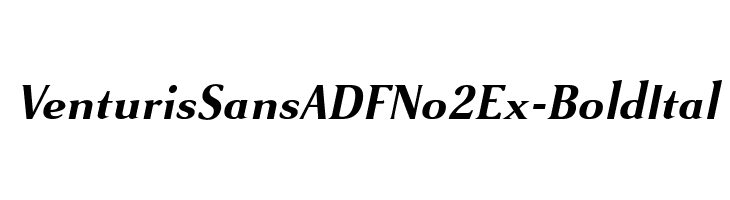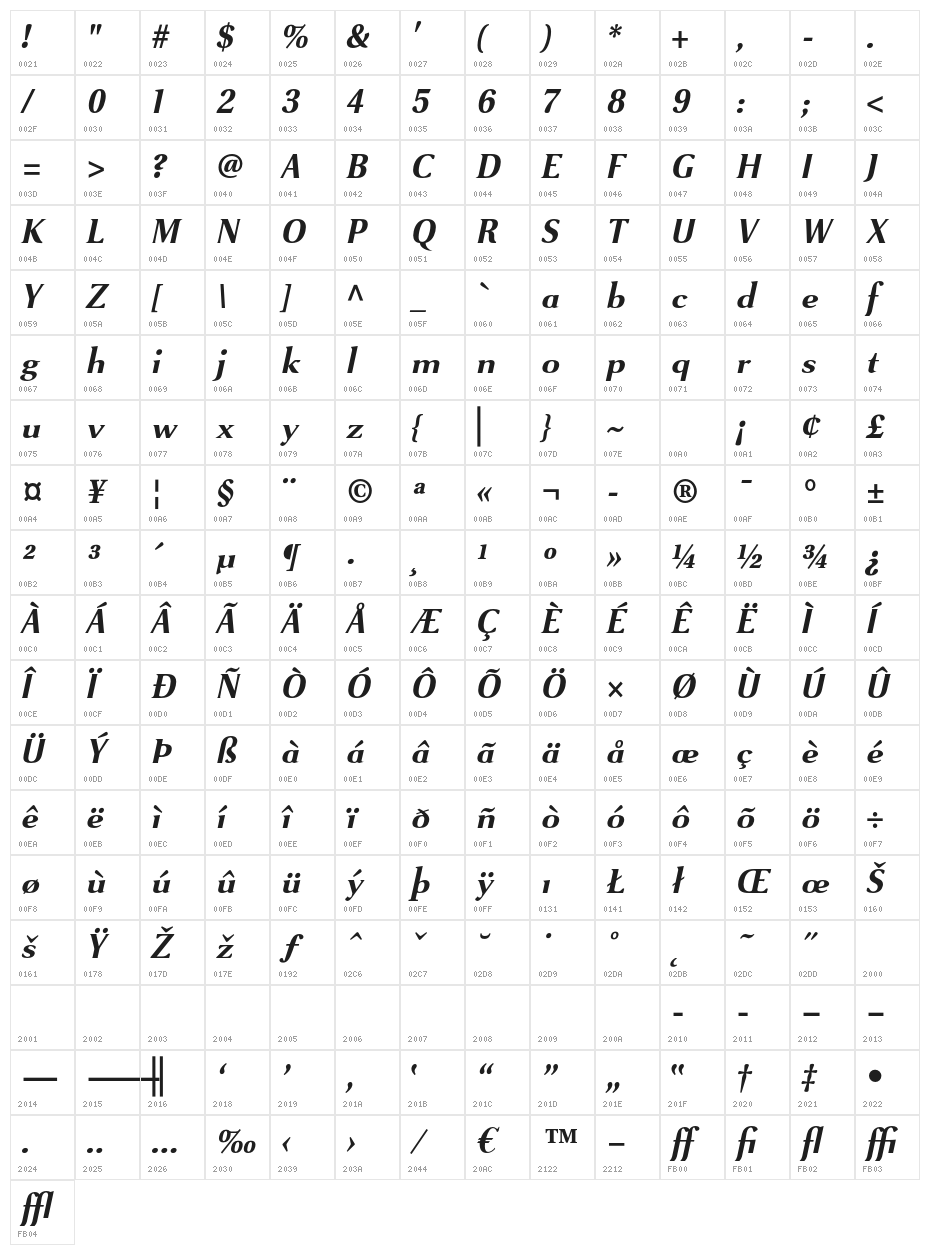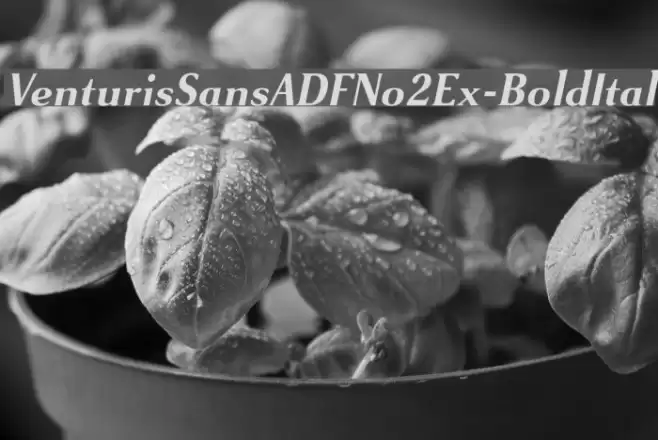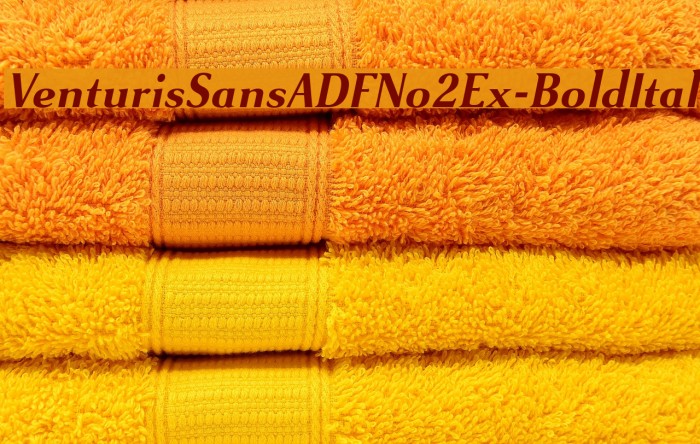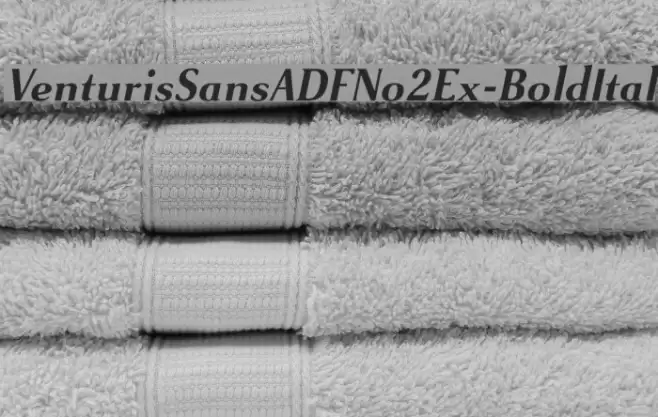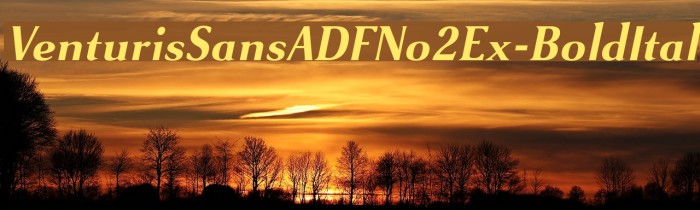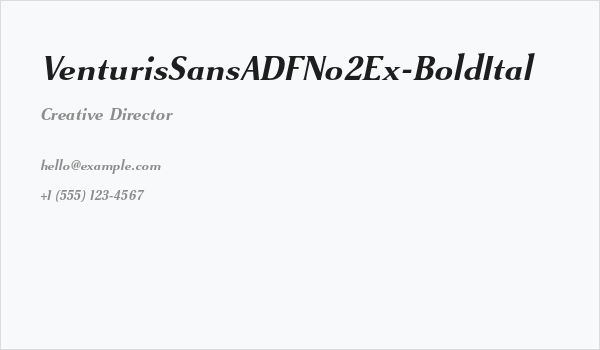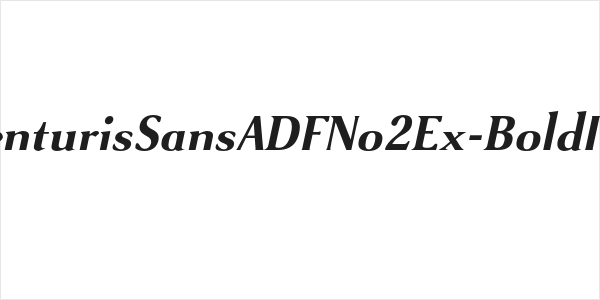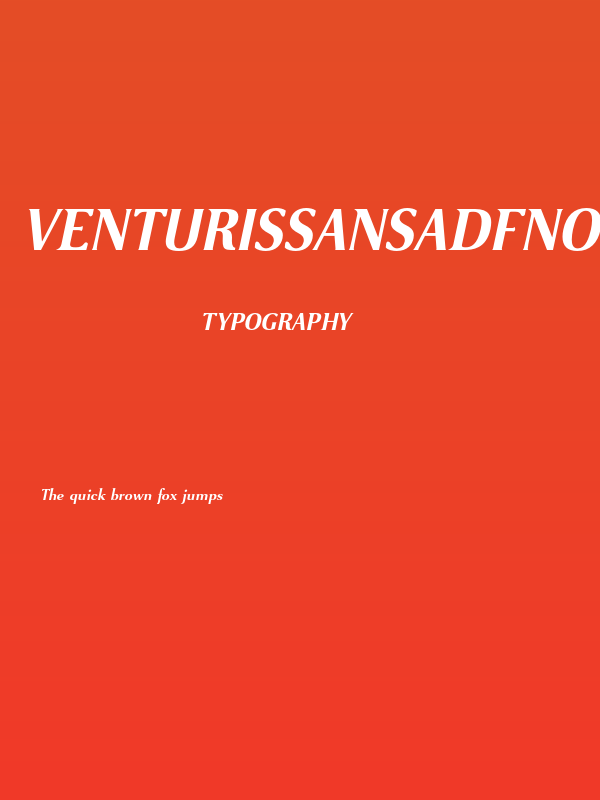
VenturisSansADFNo2Ex-BoldItal Font
VenturisSansADFNo2Ex-BoldItal Description
This font features a bold and italicized style, combining elegance with a strong presence. The uppercase letters are slightly condensed, giving a modern and sophisticated look. The lowercase letters maintain a consistent flow, enhancing readability while adding a touch of flair. Numbers are clear and distinct, making them suitable for various applications. The special characters are well-defined, ensuring versatility in design. Overall, this font balances boldness with elegance, making it ideal for impactful headlines and stylish branding.
| Proposed Projects | Ideal for branding, headlines, posters, and editorial design. |